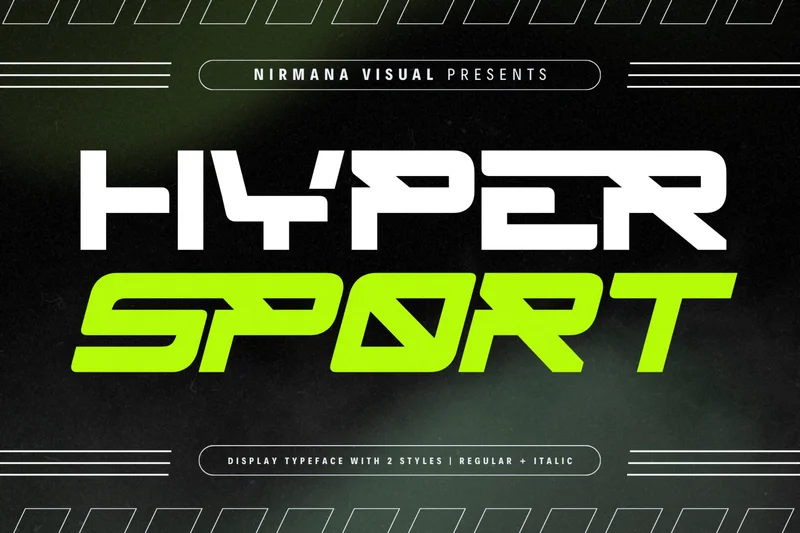
Hyper Sport – Modern Logo Font
Hyper Sport offers beautiful typographic harmony for a diversity of design projects, including logos & branding, social media posts, advertisements & product designs.